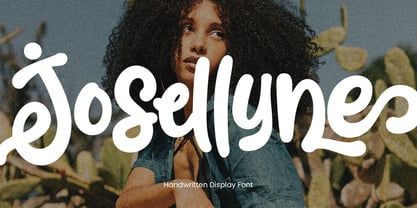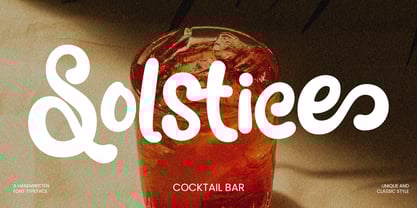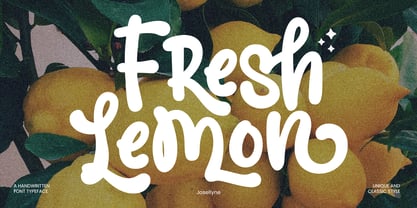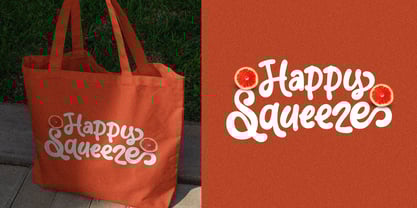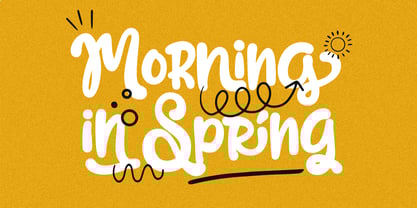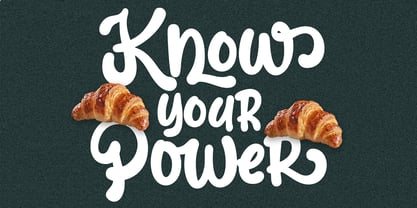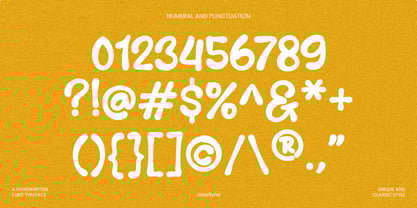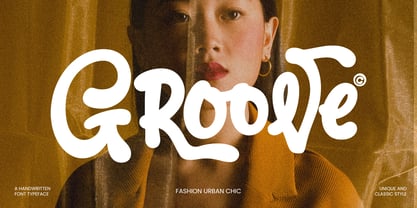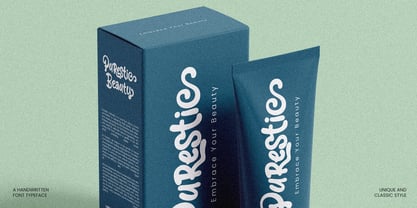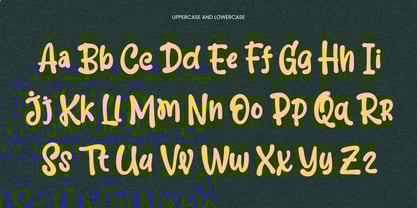
Josellyne
by Inviline
The Josellyne Font Family was designed by Virgiawan Listanto and published by Inviline. Josellyne contains 1 styles.
Josellyne is a bold handwritten display font that brings a touch of quirky charm to your design. Packed with uppercase, lowercase, numerals, punctuation, and tons of playful ligatures, this font offers a unique and expressive handwriting look that stands out. Josellyne is perfect for branding projects, packaging, posters, t-shirt prints, food menus, fashion labels, editorial titles, and all creative works that need a friendly, retro, and bold personality with a twist of fun and character.
Designers: Virgiawan Listanto
Publisher: Inviline
Foundry: Inviline
Design Owner: Inviline